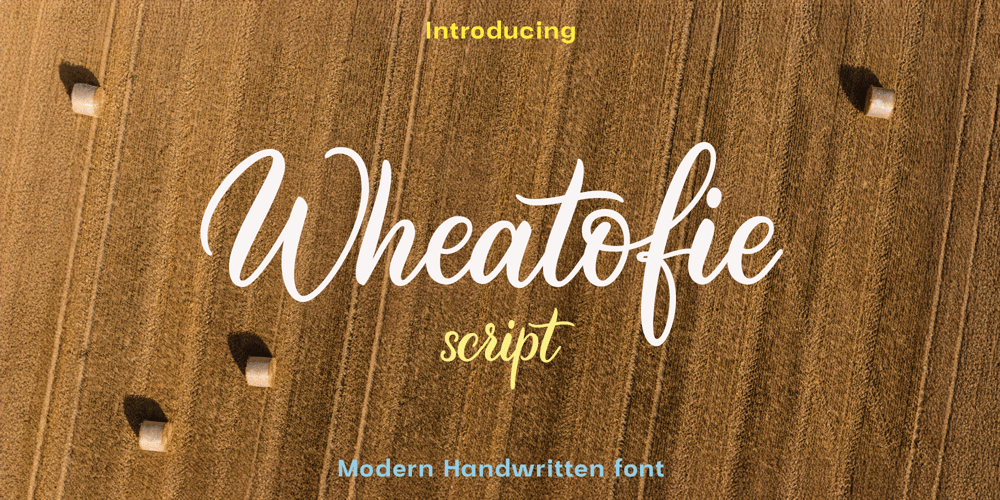
Wheatofie Font Family was designed by Mari Biriukova and published by Kventa. Wheatofie contains 1 styles and family package options. Wheatofie is a handwritten font with alternatives and ligatures. The ligatures were taken from real handwriting, so all the inscriptions look super natural. It is perfect for creating quotes, logos, wedding invitations, menu designs, YouTube covers, or just adding a handwritten touch to any project!